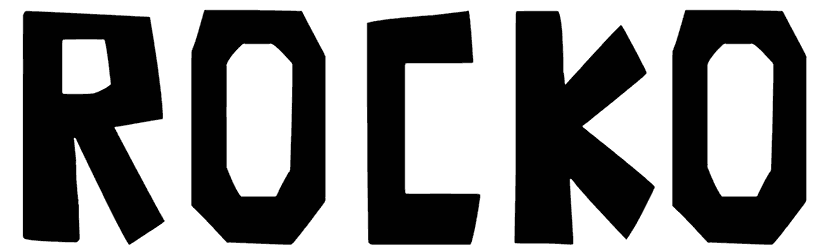
Rocko Font
We have just added a magical, adventure font, such as Rocko, to our archive that is totally versatile and can be included in a wide set of graphic content, ranging from street posters, video game banners, digital brochur…
We have just added a magical, adventure font, such as Rocko, to our archive that is totally versatile and can be included in a wide set of graphic content, ranging from street posters, video game banners, digital brochures, and flyers, to packaging. This all-caps geometric font can lead to a feeling of modernity, grunge, dynamism, or fierceness.
A quirky display face